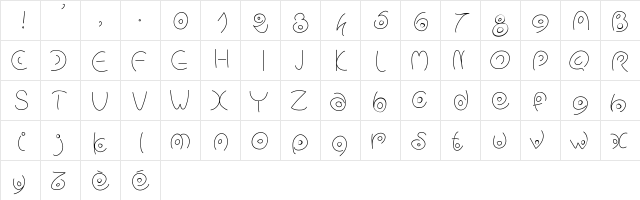
PWCirclefonts Medium
PWCirclefonts is a composed and adaptable typeface that performs quietly and consistently across a wide range of design contexts.